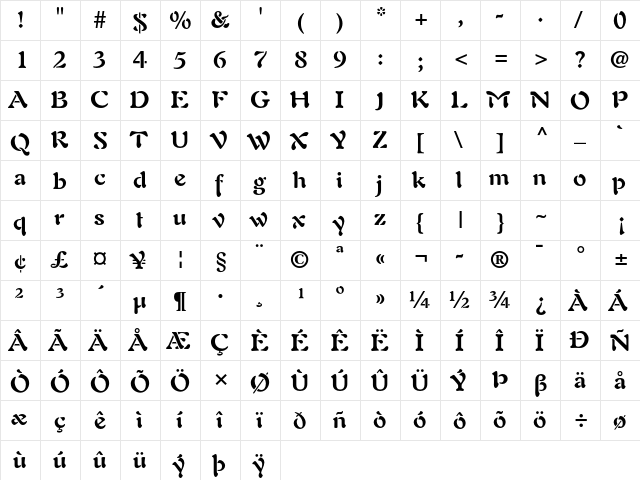
Auriol LT Std Bold
| Designer | Georges Auriol |
Design Context for Auriol LT Std Typeface
Auriol LT Std is a composed and adaptable typeface that performs quietly and consistently across a wide range of design contexts. The heavy weight commands attention and anchors typographic hierarchies.